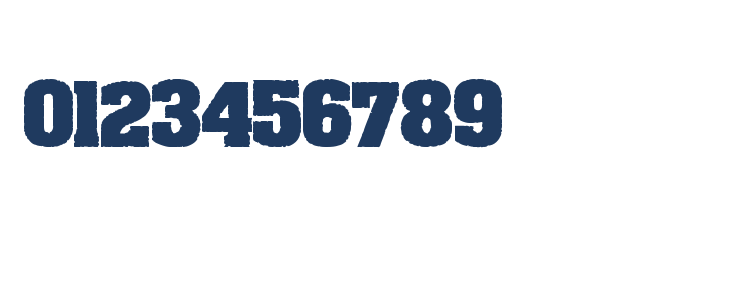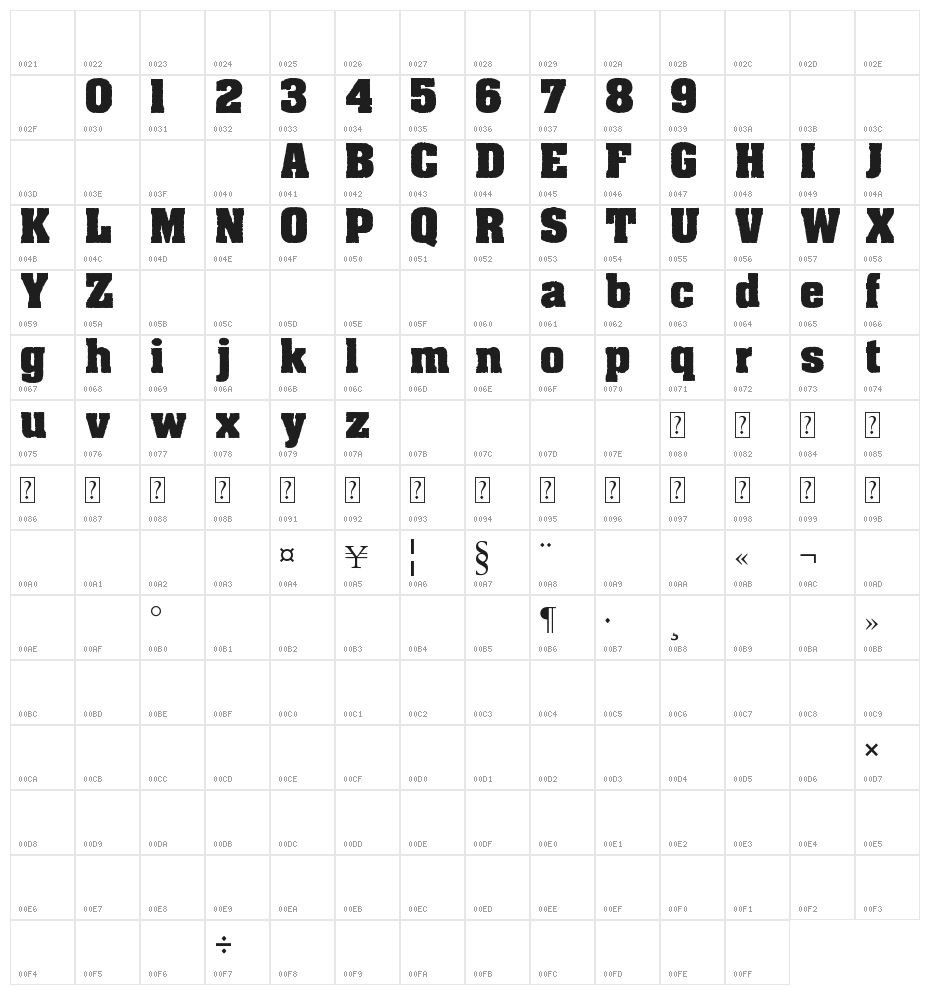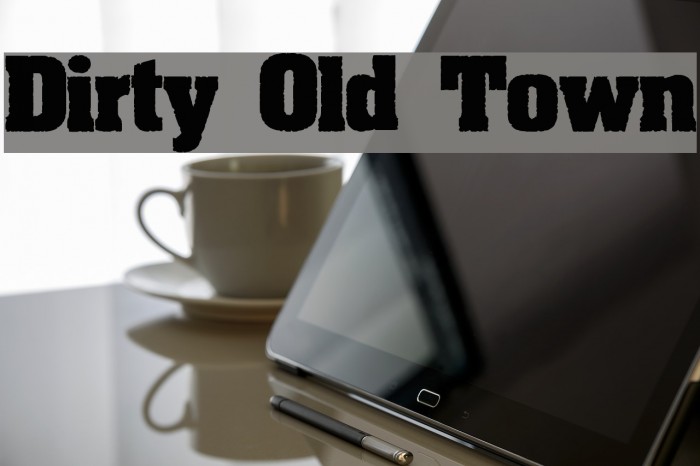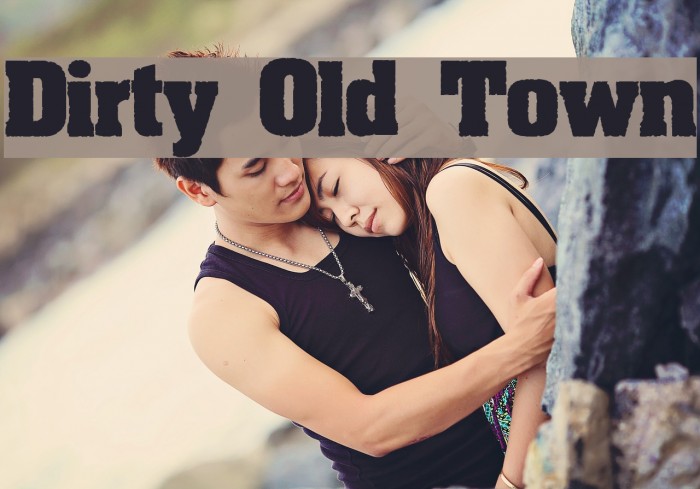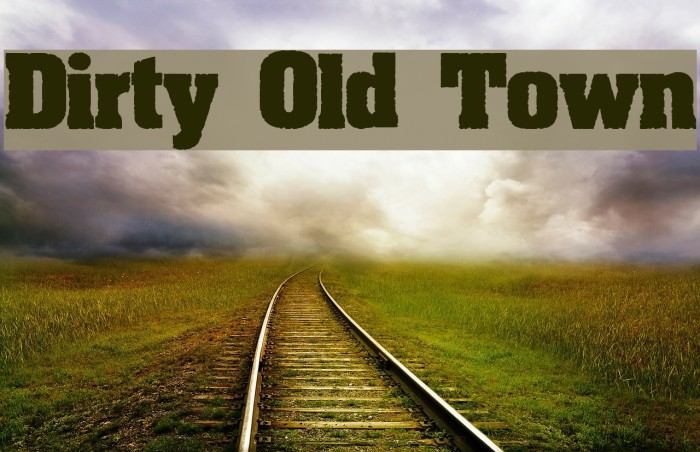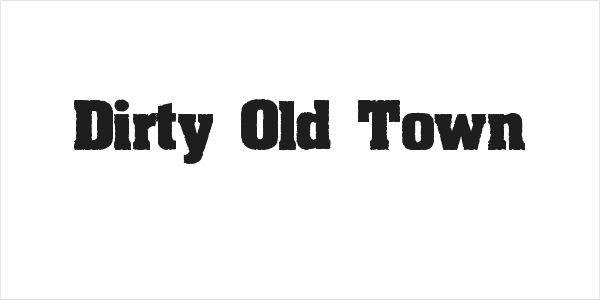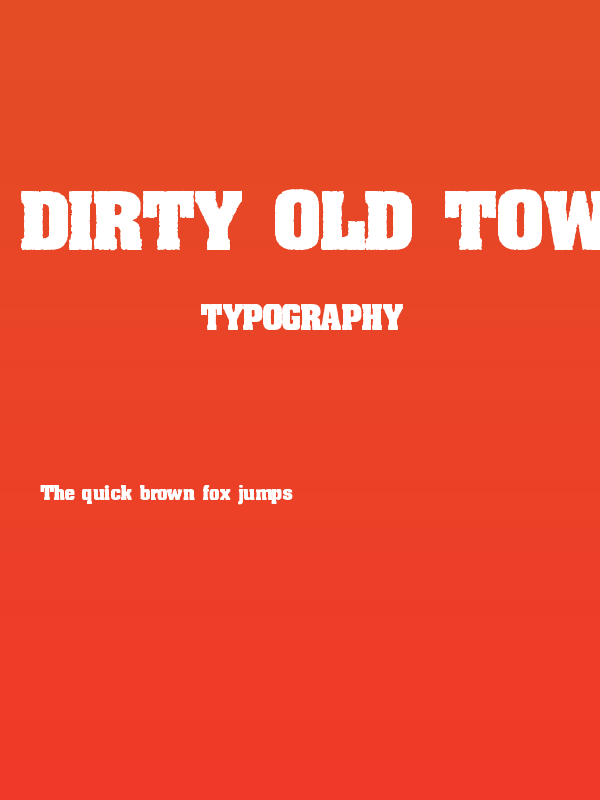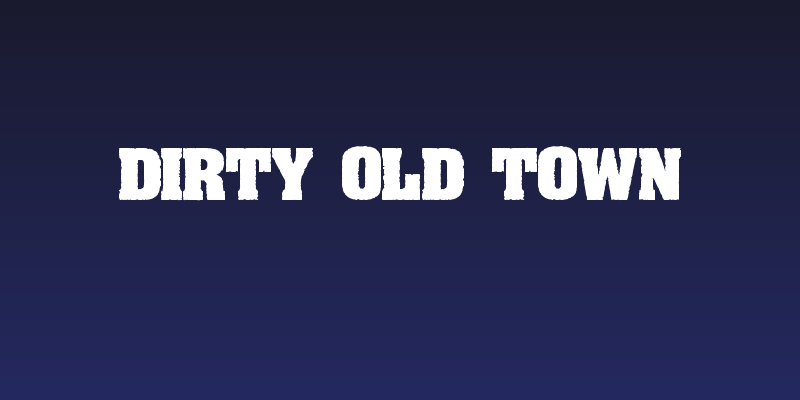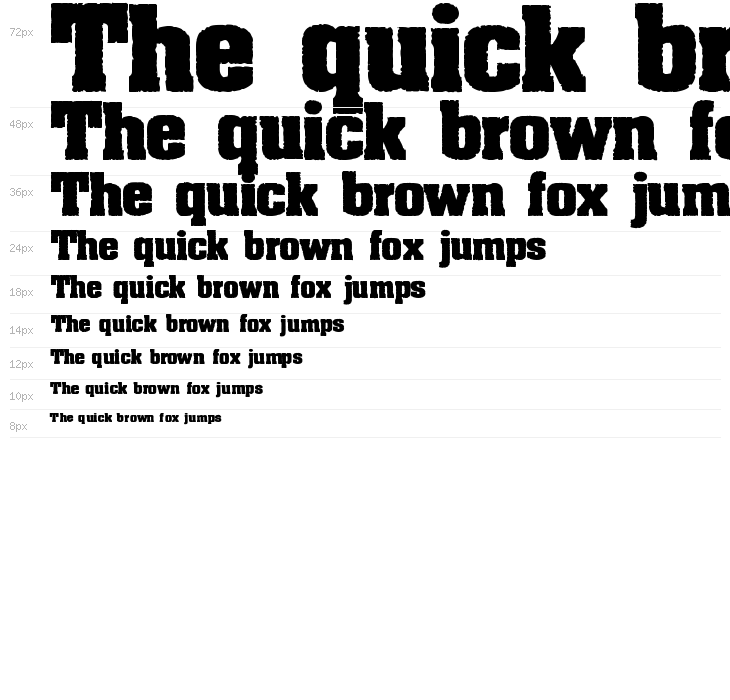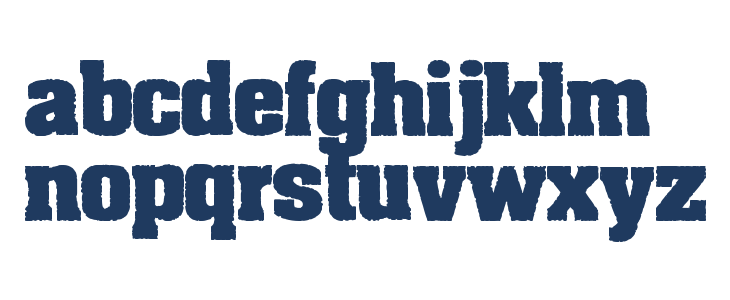
Dirty Old Town Font
Dirty Old Town Description
This font exudes a rugged, distressed aesthetic, reminiscent of vintage signage or weathered print materials. The bold, blocky characters are heavily textured, giving them a worn, gritty appearance that suggests age and character. Each letter is uniquely distressed, adding to the font's charm and authenticity. The uppercase and lowercase letters maintain a consistent style, while the numerals and special characters complement the overall design. This font is perfect for projects that require a touch of nostalgia or a rustic, handcrafted feel.
| Proposed Projects | Ideal for vintage-themed posters, rustic branding, album covers, and any design needing a touch of nostalgia. |